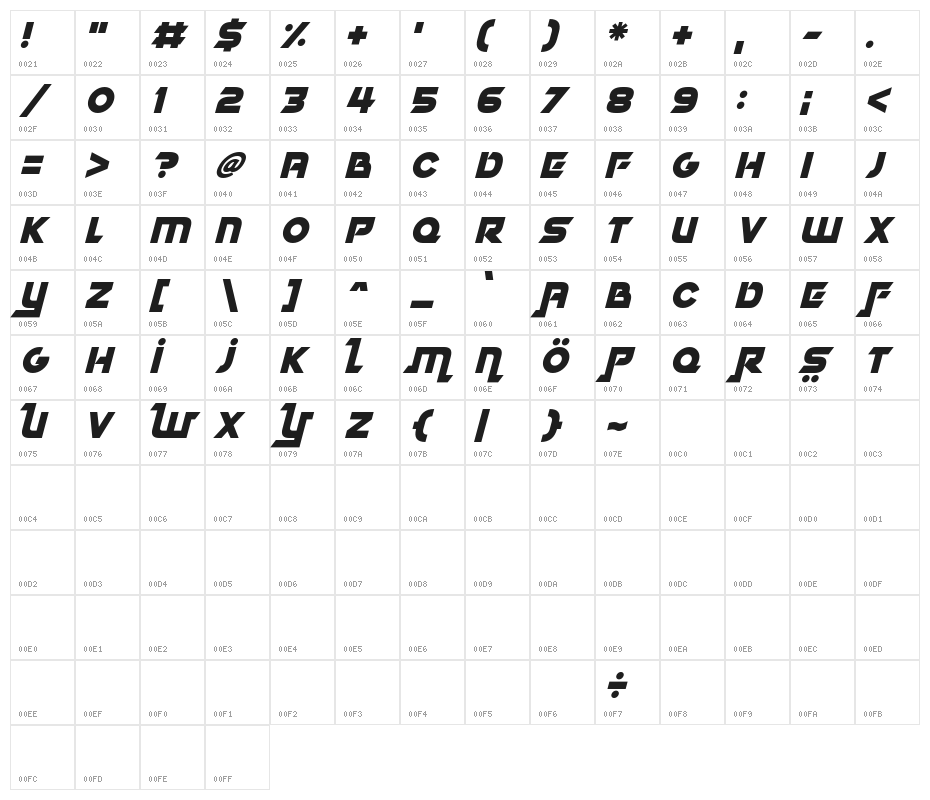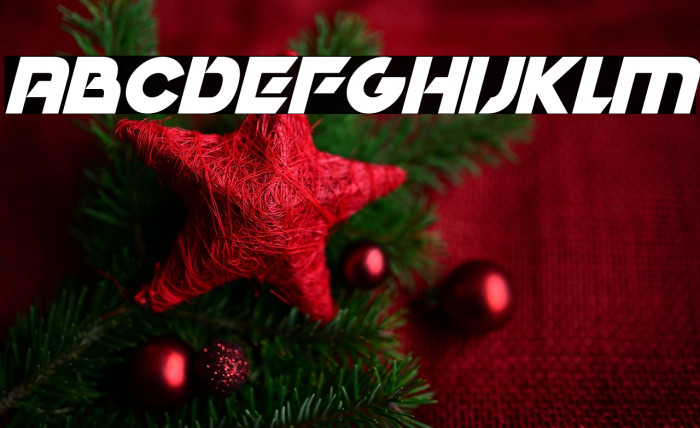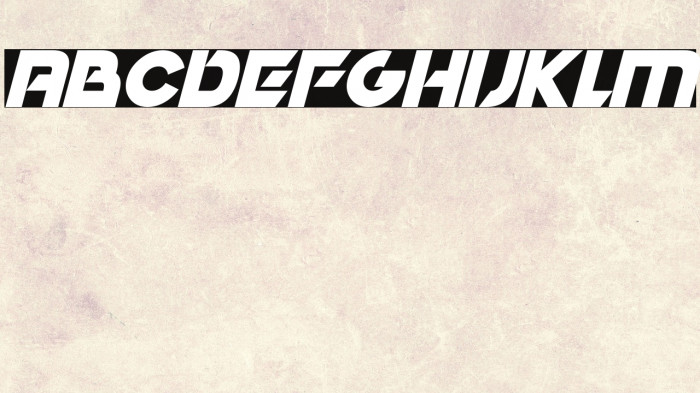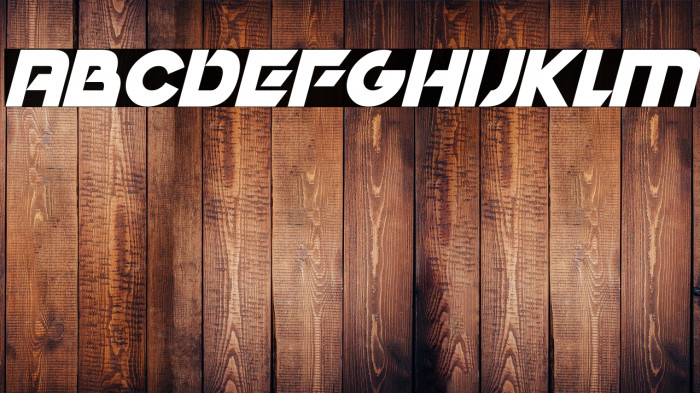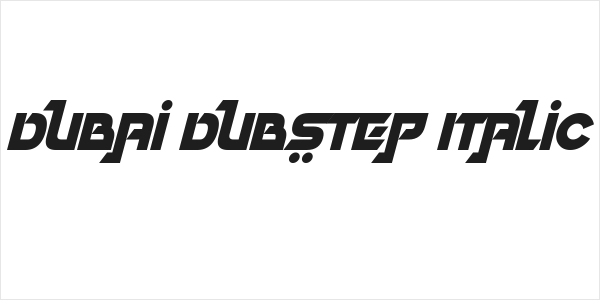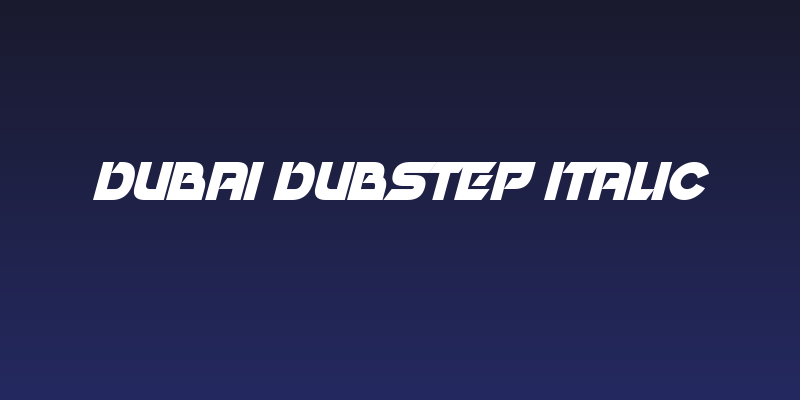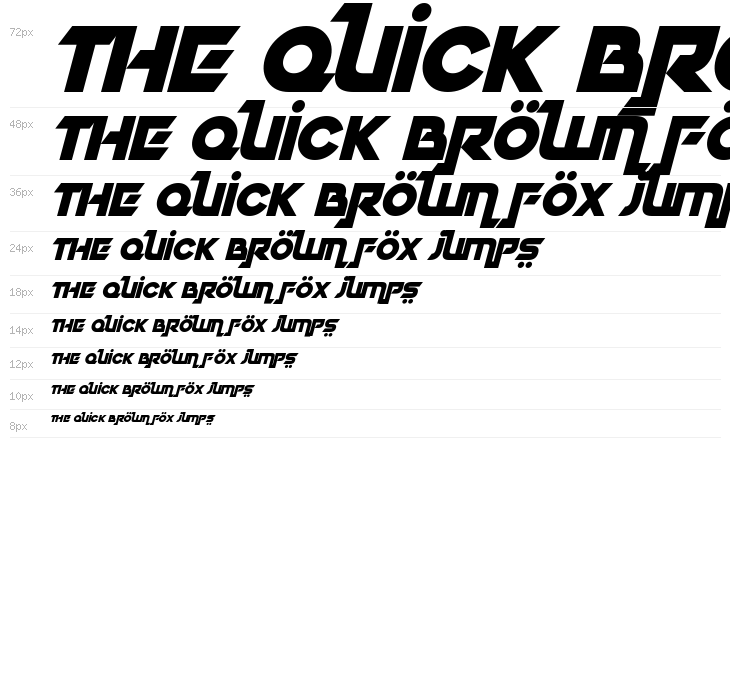
Dubai Dubstep Italic Font
Dubai Dubstep Italic Description
This font features a bold and dynamic style with a futuristic and edgy appearance. The characters are italicized, giving a sense of motion and speed. The strokes are thick and consistent, providing a strong visual impact. The angular and geometric shapes of the letters contribute to its modern and tech-inspired aesthetic. The font includes both uppercase and lowercase letters, numbers, and a variety of special characters, making it versatile for various design needs. Its unique style is suitable for projects that require a bold statement, such as branding for tech companies, music events, or sports teams.
Proposed ProjectsIdeal for tech branding, music event posters, sports team logos, and futuristic designs.